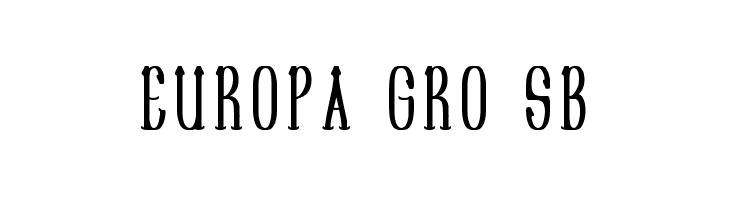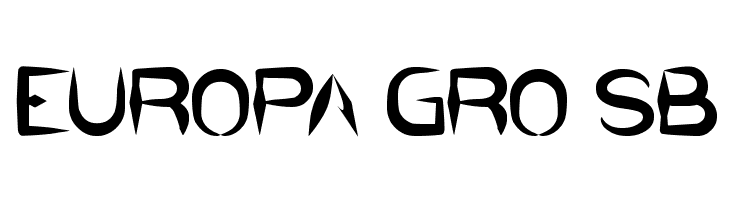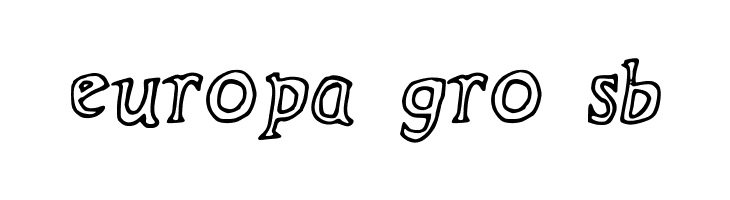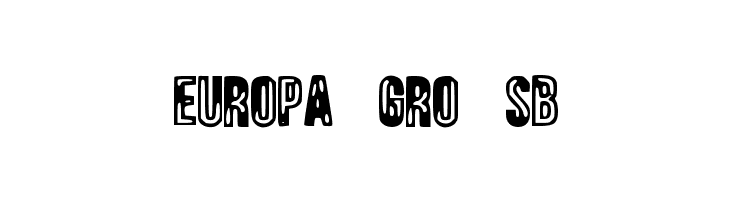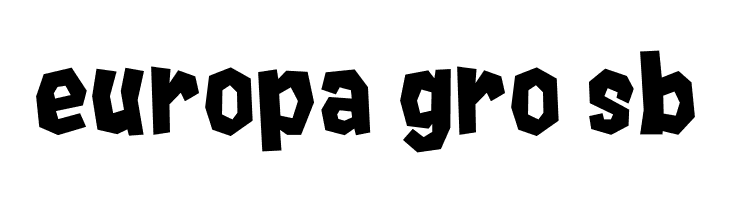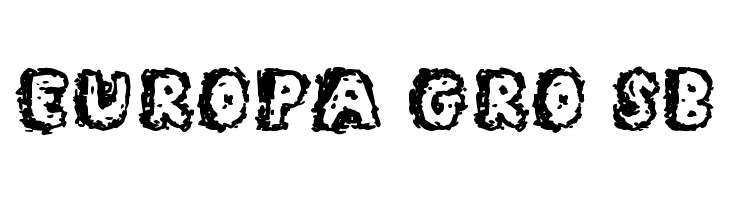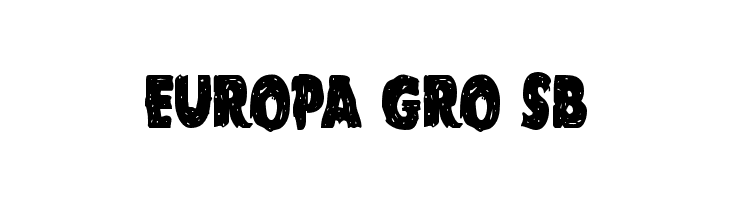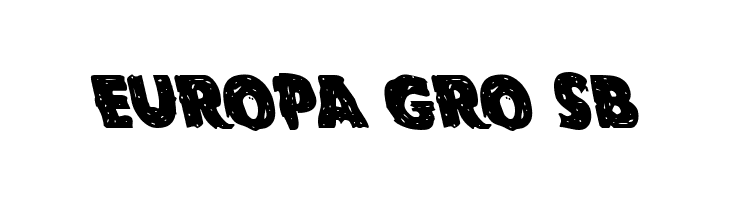
A bold, nautical-themed decorative font with anchor-like serifs.
A bold, decorative font with pirate-themed flair and unique embellishments.
A bold, angular font with sharp edges and a dynamic, modern aesthetic.
A whimsical, outlined font with a playful and adventurous style.
A bold, jungle-themed font with playful cutouts and high contrast.
A bold, jagged font with an angular, rock-like appearance.
A bold, textured font with a rugged, rocky appearance.
A bold, distressed, and condensed font with a rugged, vintage look.
A bold, distressed font with a playful, adventurous style.
A bold, distressed font with a playful, rugged style.